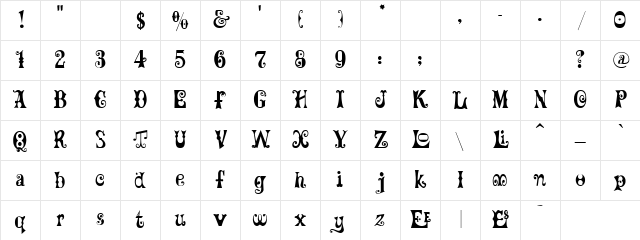
360 LT Regular Free Font
360 LT Regular
Designer: JupiterImages
Design Context for 360 LT
360 LT is a composed and adaptable typeface that performs quietly and consistently across a wide range of design contexts. Its slender proportions lend an understated elegance to any composition.